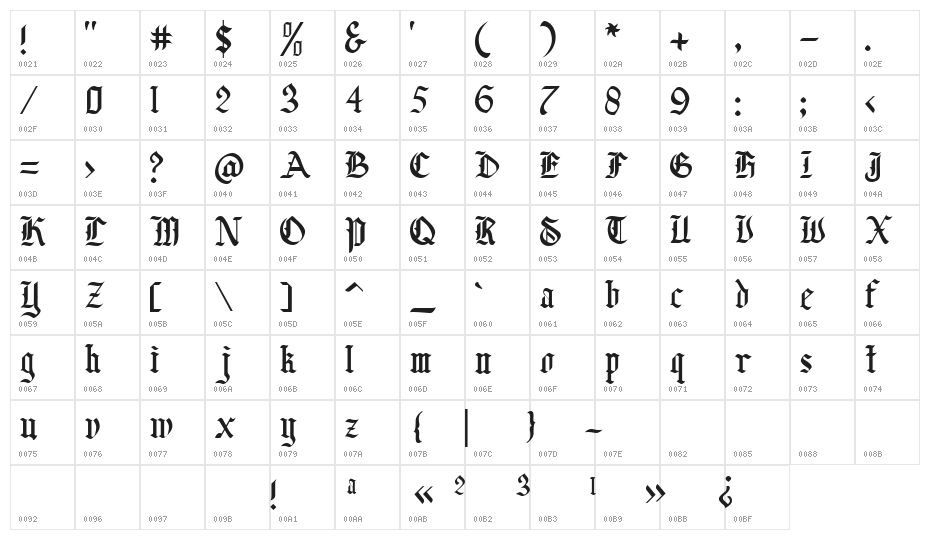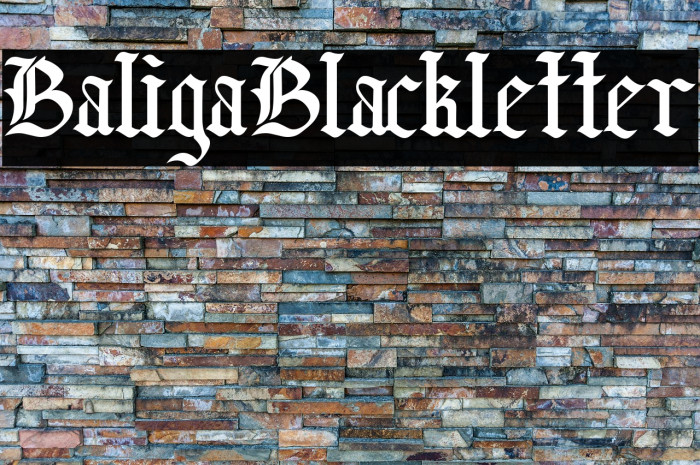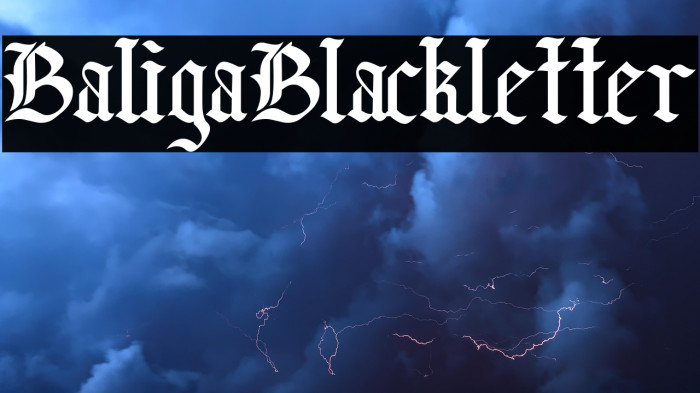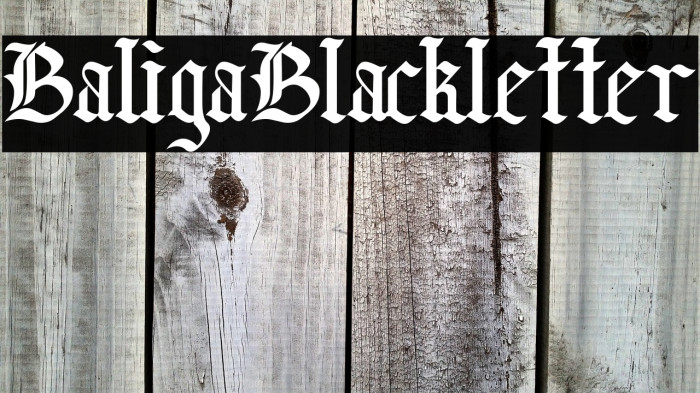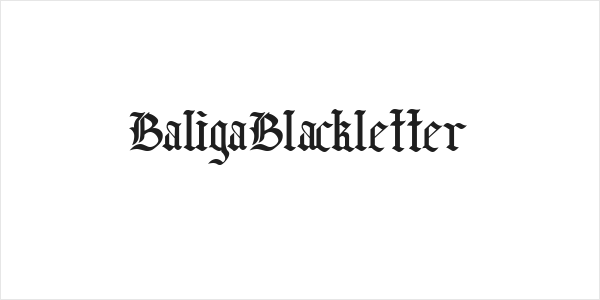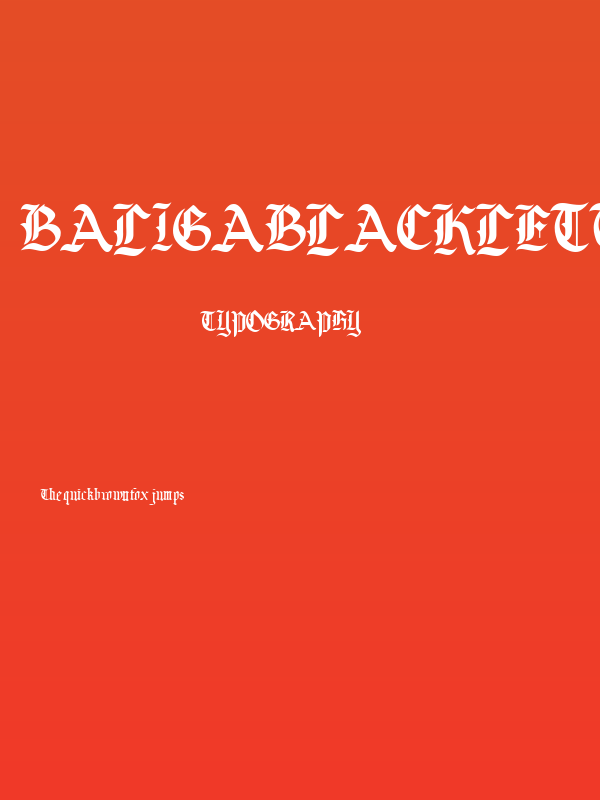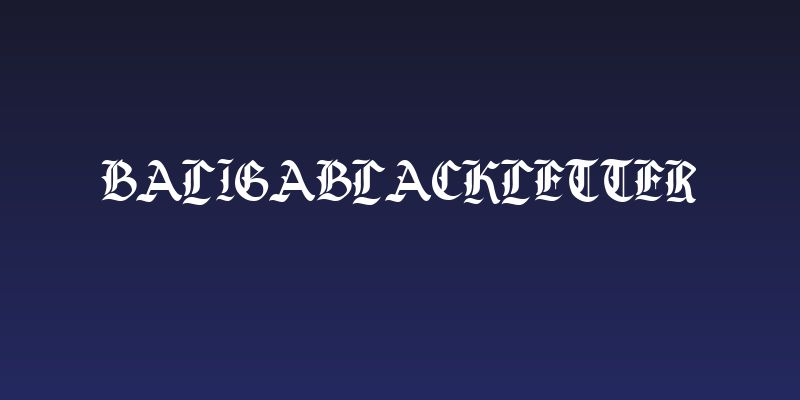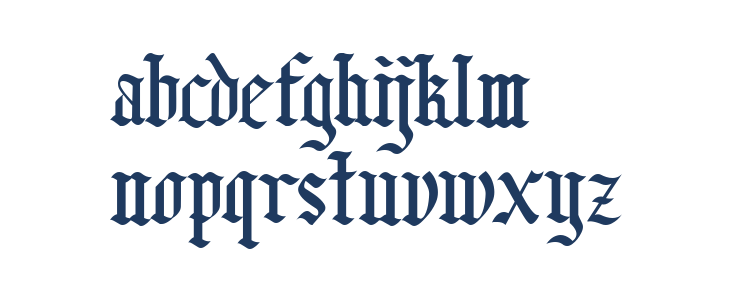
Baliga Blackletter Font
Baliga Blackletter Description
This font embodies the traditional Blackletter style, characterized by its intricate and ornate letterforms. The uppercase letters are bold and dramatic, with sharp angles and elaborate serifs that give a sense of historical gravitas. The lowercase letters maintain the same intricate detailing, providing a cohesive look across the typeface. Numbers and special characters are designed with the same attention to detail, ensuring consistency throughout. The overall appearance is reminiscent of medieval manuscripts, making it ideal for projects that require a touch of antiquity and elegance.
| Use Case | Headlines, Logos, Decorative text |
| Proposed Projects | Ideal for historical documents, certificates, book covers, and branding that requires a vintage or medieval aesthetic. |